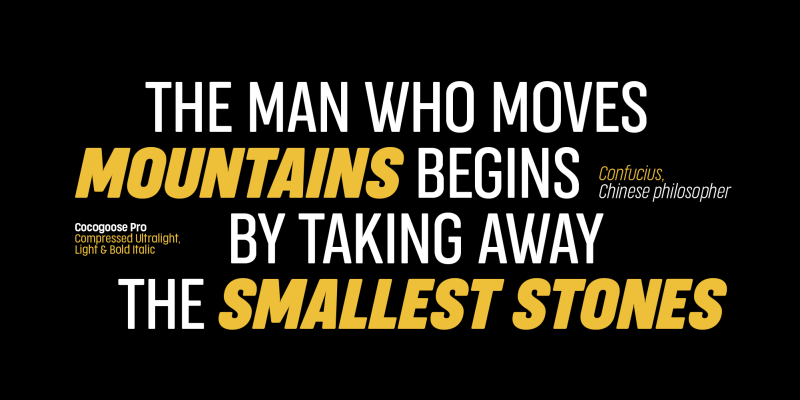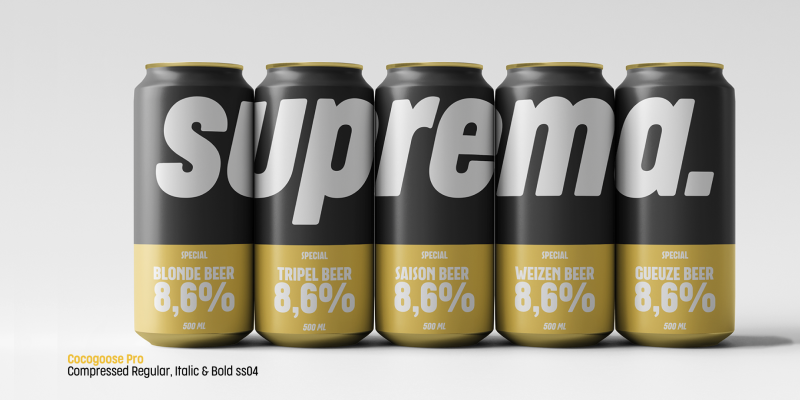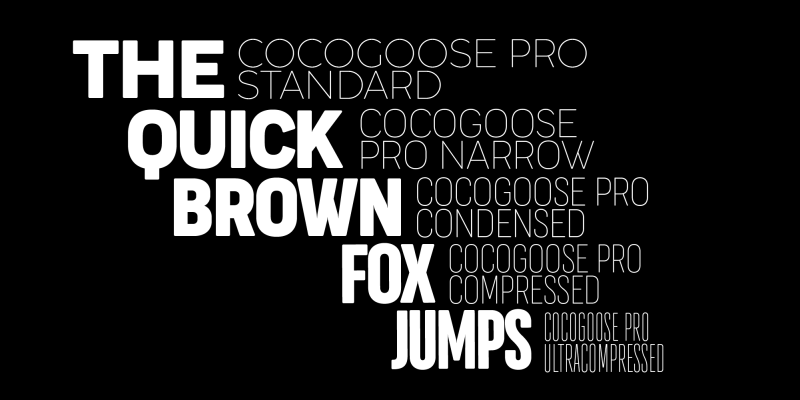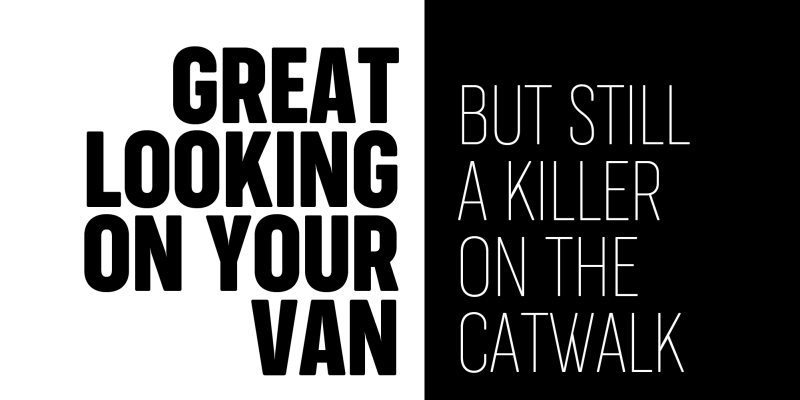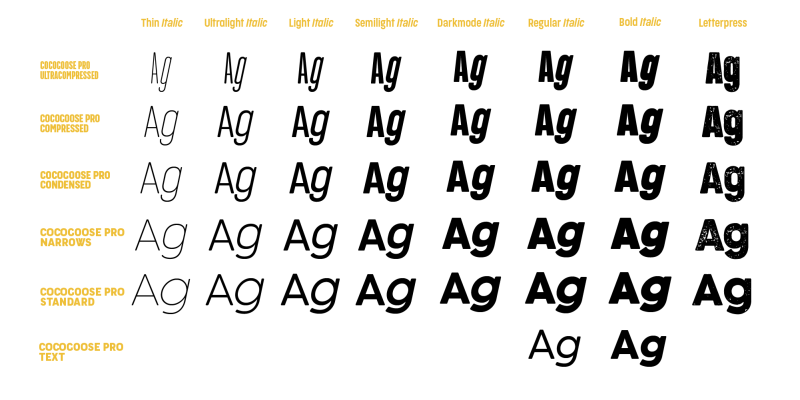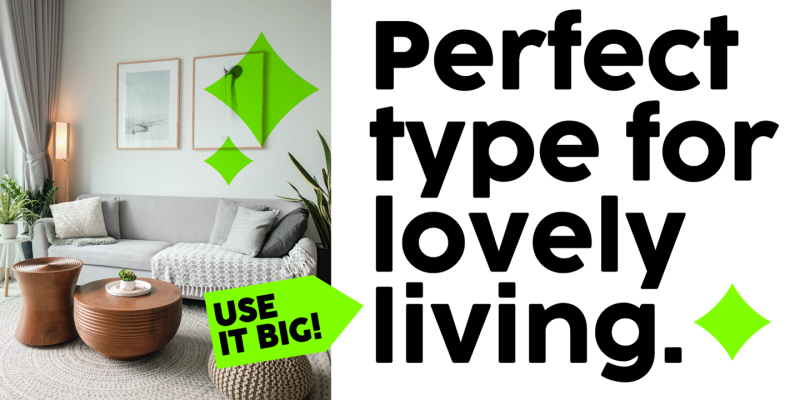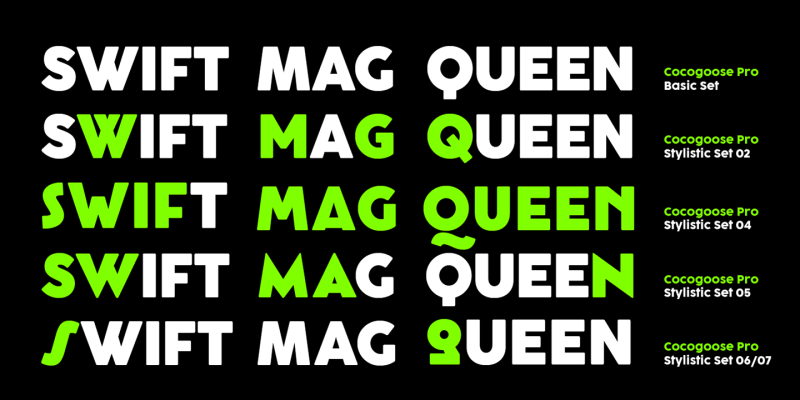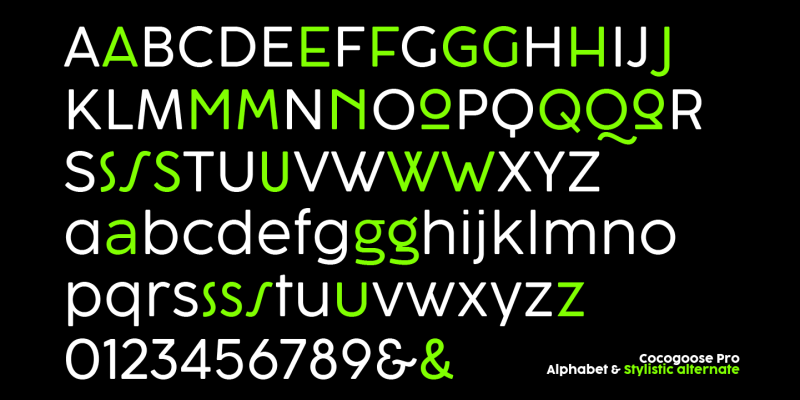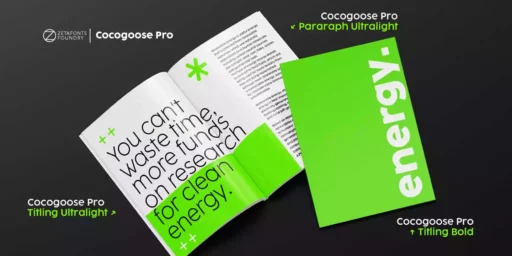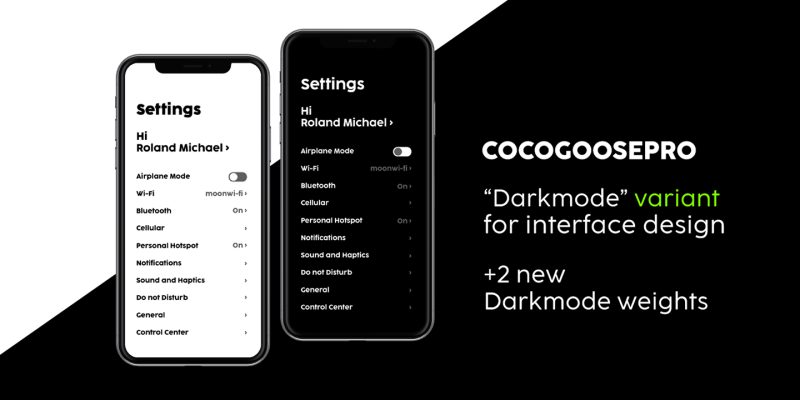
Cocogoose Font
Cocogoose is a geometric sans-serif font family that perfectly balances the rationalist idealization of the digital age and the rustic appeal of vernacular sign painting…
Cocogoose is a geometric sans-serif font family that perfectly balances the rationalist idealization of the digital age and the rustic appeal of vernacular sign painting. It is a contemporary font that has its basis in the history of typography typefaces. It is a product by Zetafonts, an Italian digital-type foundry based in Florence. The Cocogoose font family is based on the geometry of sans-serif fonts from the early twentieth century, but there is a modern look that is great for contemporary design.
The developers created Cocogoose font in 2014, and it has received appreciation and acceptance from various professionals, including graphic designers, web designers, and those involved in brand identity. The font is specific, courageously and unconditionally catching the eye; it can be used universally. This is due to its mix of antique and industrial elements, making it suitable for designers who want more than the conventional typeface.
The Cocogoose font is neat, and it looks less curved, with precise cuts, sharp edges, and distinct geometric shapes. It has a high x-height and extensive widths of the letters, making them great in attitude and look dominant on the page. As one can see, Cocogoose is a highly readable font that is suitable for a range of purposes. Still, its elegant and simultaneously impactful design makes it particularly suitable for headlines and logos.
Another characteristic of Cocogoose font is the availability of a vast number of weights, styles, and alternate characters incorporated in the font. This means the font is quite useful and can be applied to a wide range of design works. From attention seeking headline letters to elegant and conservative body type faces, Cocogoose is a perfect match.
Cocogoose font family is highly flexible, which makes it appropriate for a wide variety of graphics projects. This font type is quite suitable for headlines, posters, and other materials that need special emphasis. This kind of font is also ideal for logos, branding and packaging services due to its geometric shapes and clean lines.
For this very reason, Cocogoose font, apart from being sharp and edgy with its design, also provides many choices with weights and styles and is perfect for a number of designs. When it comes to Cocogoose, there are all sorts of different typography styles for various uses, such as a modern font for standard text or a bold font for titles. It also supports a very wide range of glyphs, including many styles like alternate characters and ligatures, in order to help designers unleash their creativity even further.
Before using this font as the secondary font in combination with the other fonts, one needs to consider the general visual concept of the particular project. Such font offers high impact and visibility and thus works best for headlines and any other text that needs to stand out. Meanwhile, you can use other standard types of fonts for the body and other secondary texts. Here are the best fonts that complement Cocogoose for creating contrast in weight and style as well as building the structural hierarchy of designs.
Cocogoose is quite particular, and it can be rather tricky to determine what other fonts it shares well, but there are some fonts that match it nicely. MADE Tommy is a typeface that belongs to the sans-serif family, thus giving a clear and fresh feel to a project that incorporates it. Codec Pro, a new sans serif font family that is quite distinctive, is the other font that combines well with it. The second is Sequel Sans: a sans serif font that is bold, and the designers can add some character to it.
A few more factors that should be taken into account when combining Cocogoose font with other fonts is that both sets of fonts are clear, easily readable among each other. Do not overuse similar typefaces to Cocogoose because it just confuses the viewer’s eyes, and the given designs will look messy. However, when it comes to typefaces, try to choose fonts that serve as a foil to Cocogoose, but not so much that they have to be significantly different from it.
The Cocogoose is a sans serif font having characteristics with traditional typography. It is quite well-known in terms of its smooth and attractive look, which makes it effective for a large number of design concepts.
Zetafonts, a type foundry in Florence, Italy, designed this font. This type foundry is known for its new-age and quality type faces.
It defines a new style of sans serif font that takes a geometric and strong approach to it. It adapts the look and feel of traditional typography and as such, it is perfect for use in both media – print as well as online.